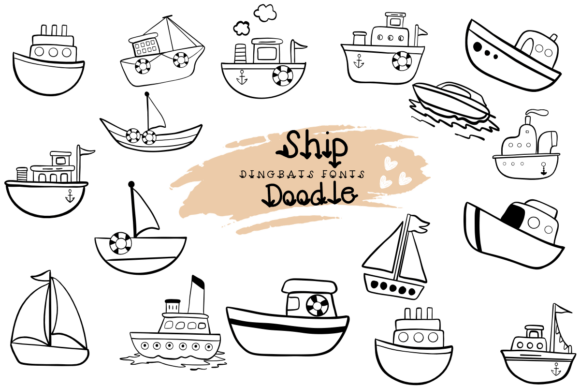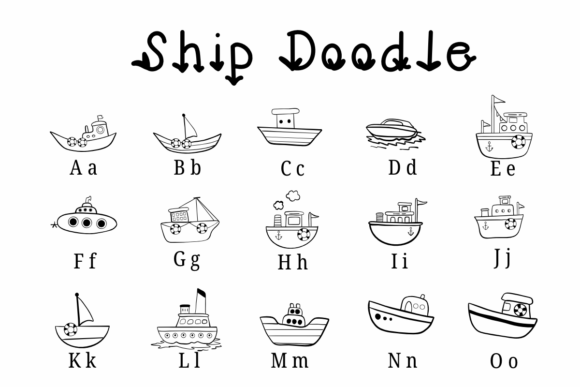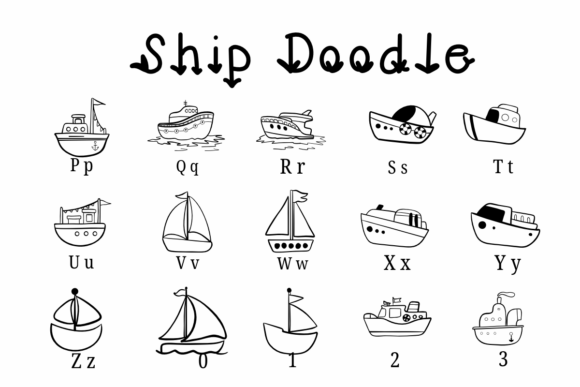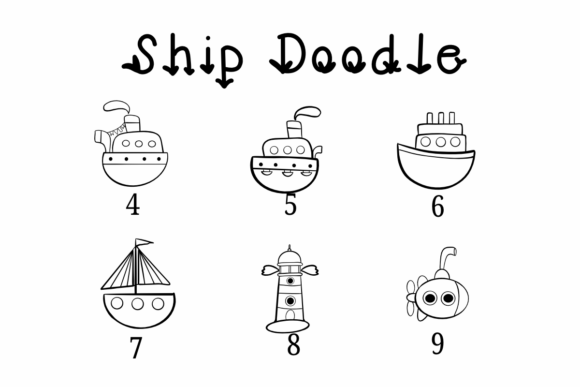
Ship Doodle Font
About the Ship Doodle Font
Let us introduce you to Ship Doodle Font, where timeless design meets modern craftsmanship. Ship Doodle is a dingbats font with a nautical theme. This font can enhance your creative projects such as wedding invitations, DIY, crafts, decorations, logos, and many other creative ideas.
Ship Doodle Font Usage Examples
Ship Doodle Font Example